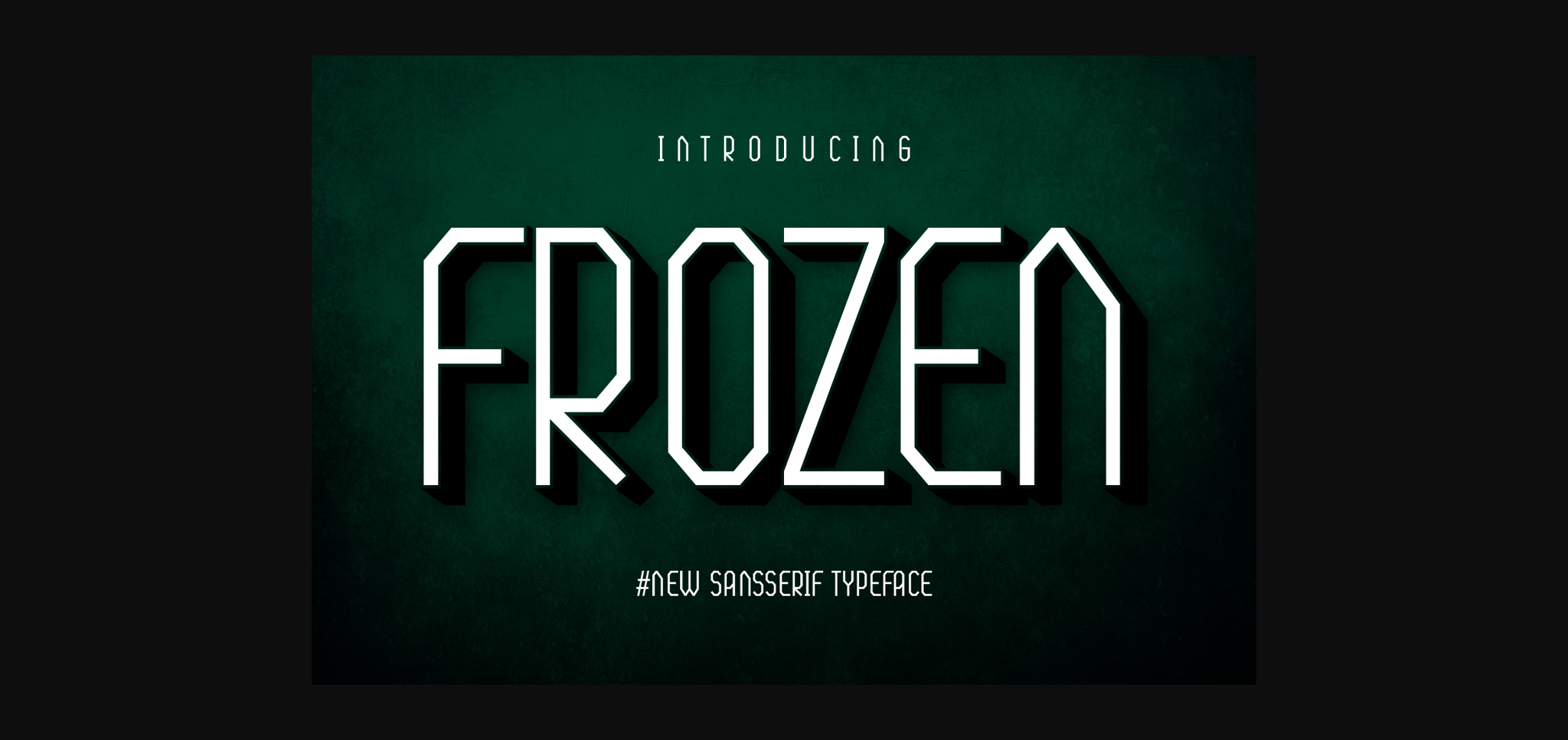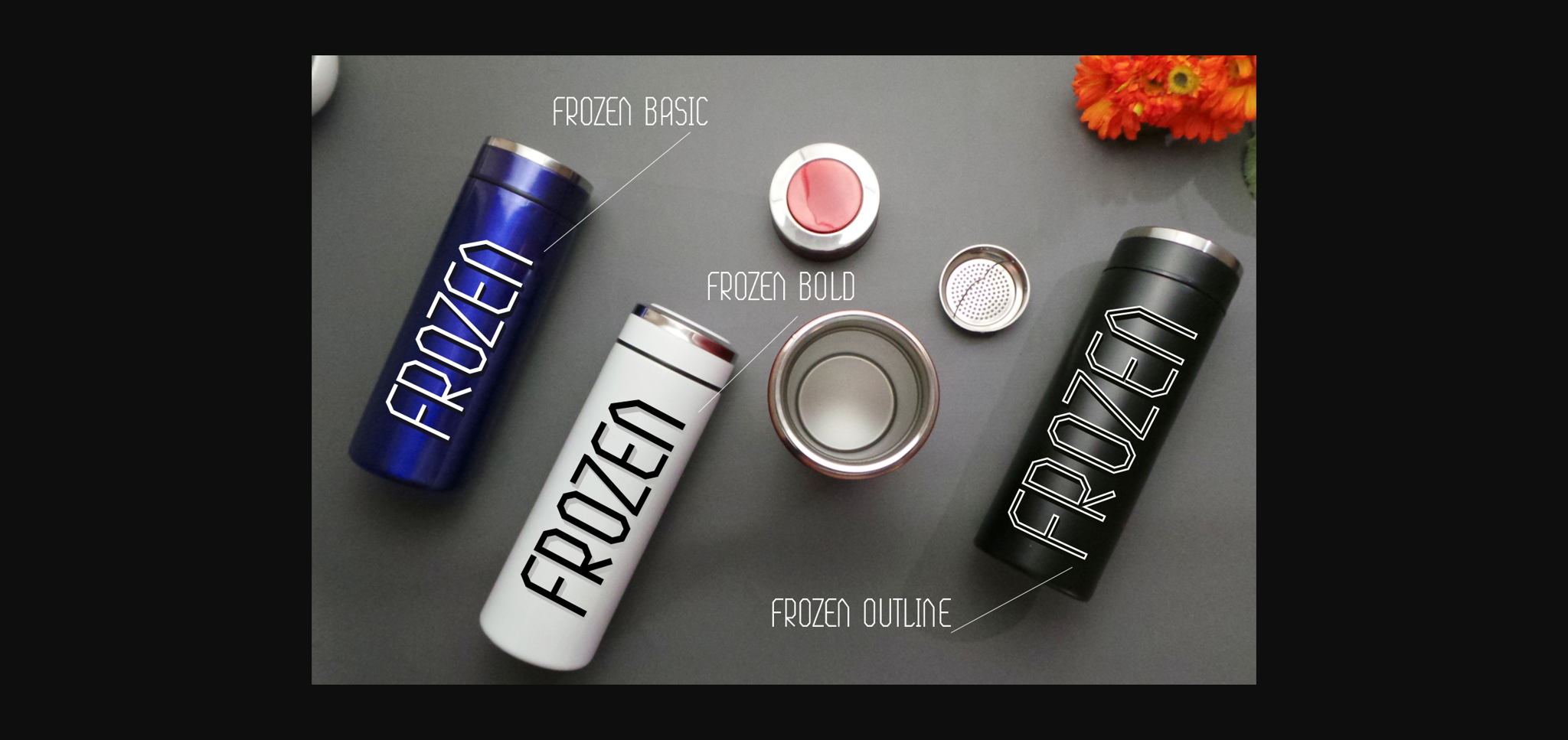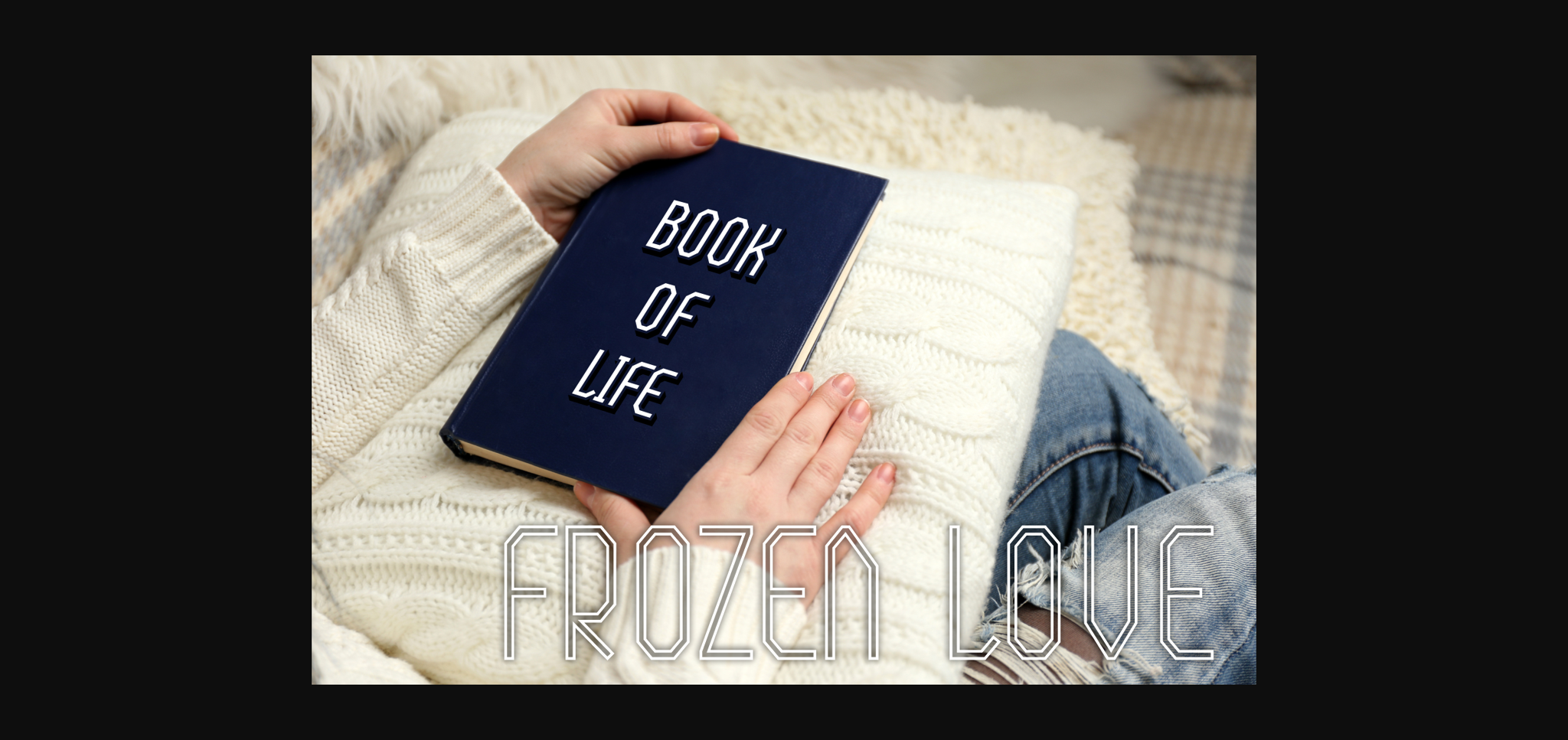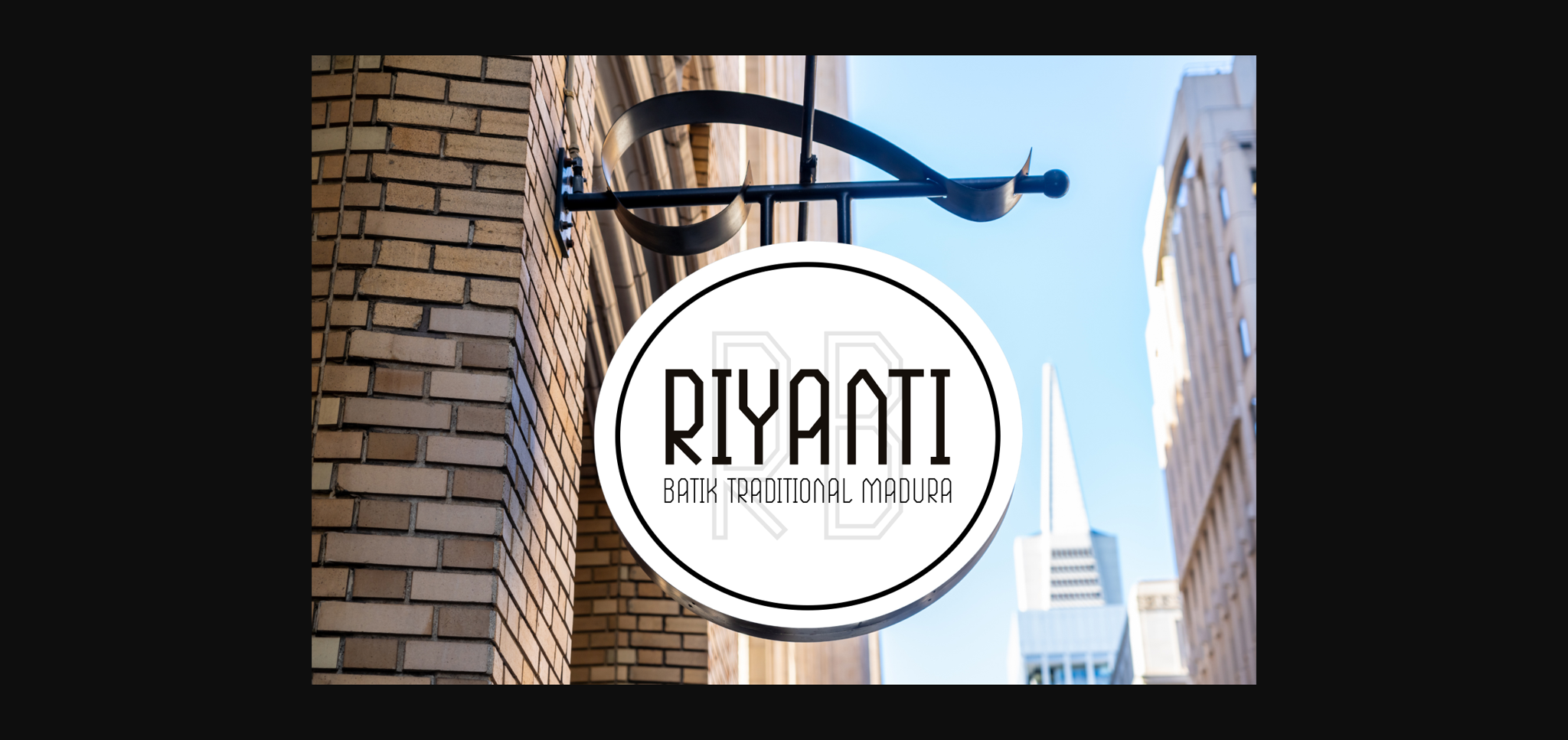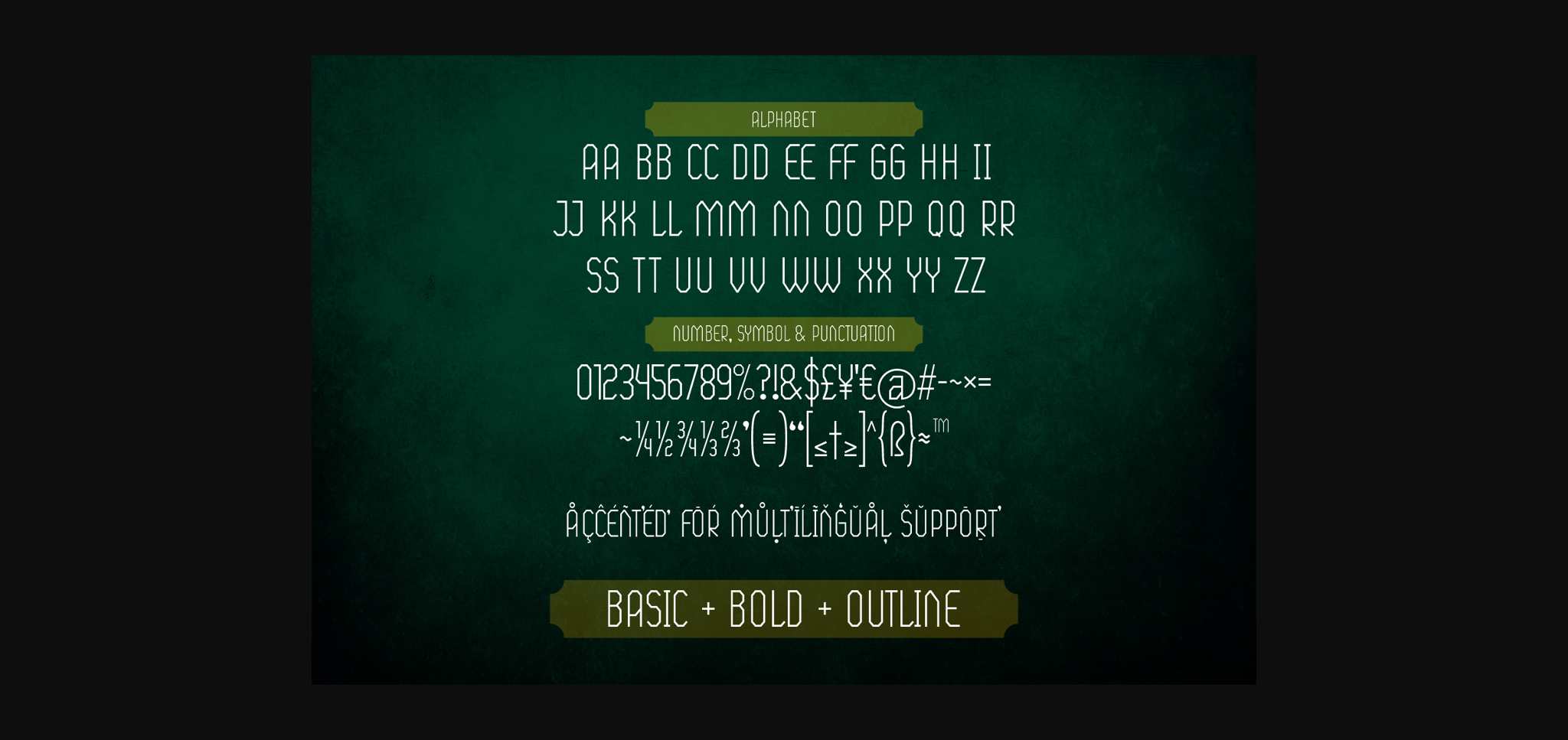
Frozen Font
About Frozen Font
Frozen is a cool and modern sans serif font. With clean lines and a sleek design, it brings a fresh and contemporary vibe to your text. Perfect for a variety of uses, from headlines to logos, Frozen adds a touch of crispness to your projects. Choose Frozen for a clean and stylish look that suits any application with ease.